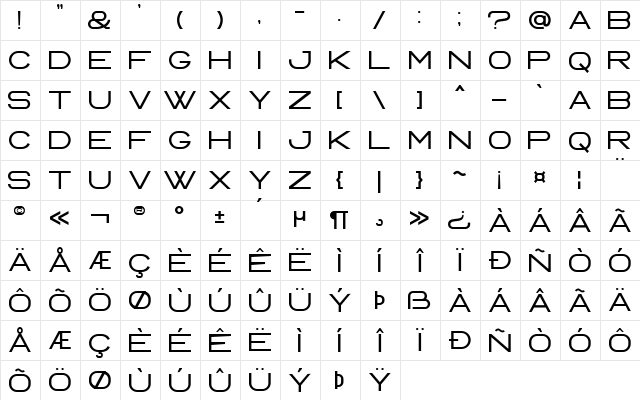
Manta Style Sans DEMO Regular
| Foundry | Vilogsign |
| Designer | Vilogsign |
Design Context for Manta Style Sans DEMO Typeface
Manta Style Sans DEMO offers clean, dependable letterforms without strong stylistic allegiance, making it a practical choice for designers who need flexibility.